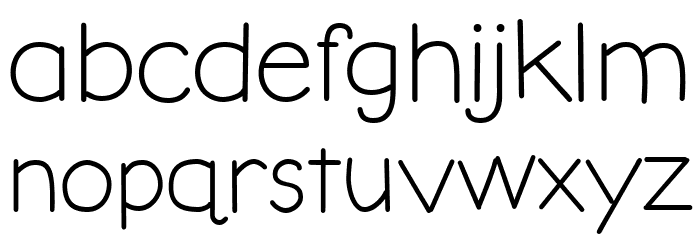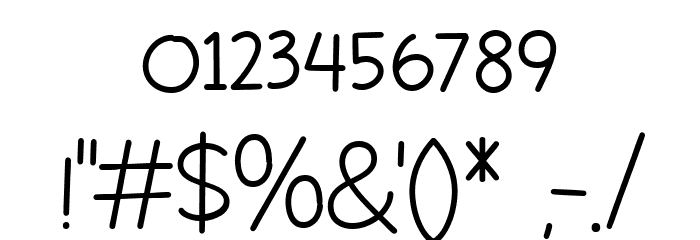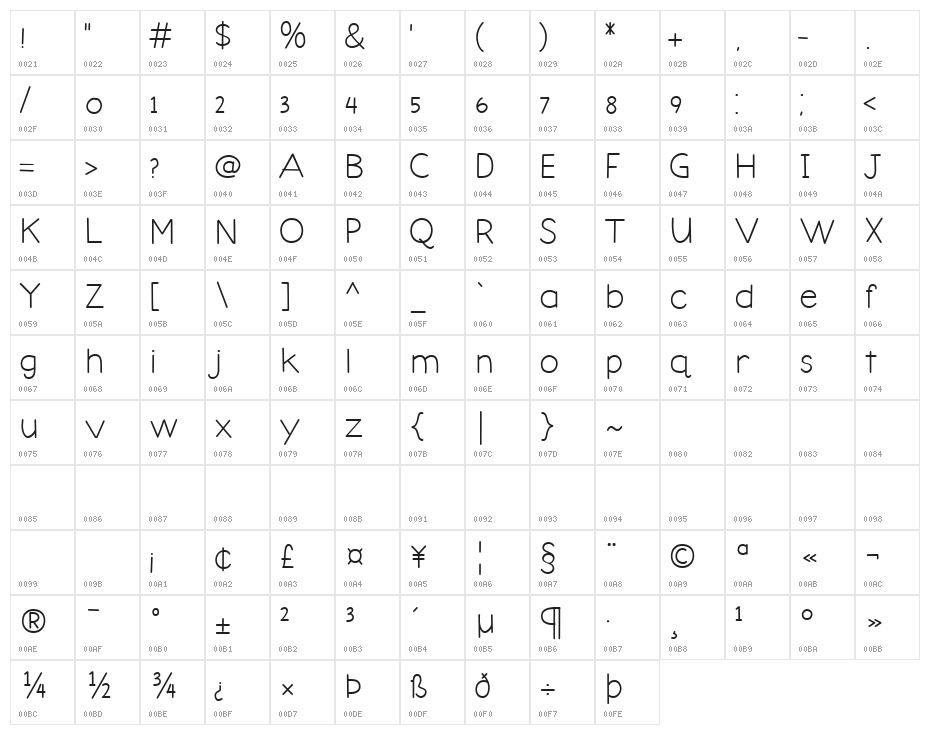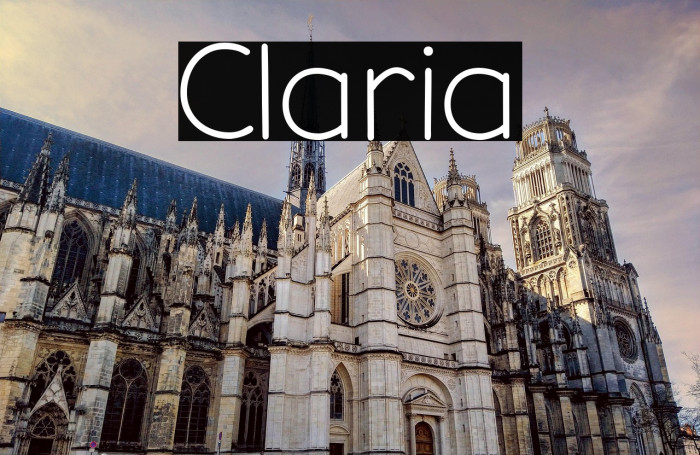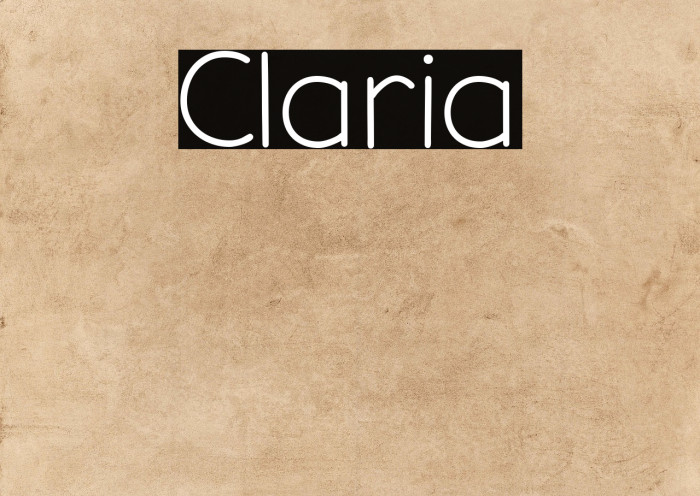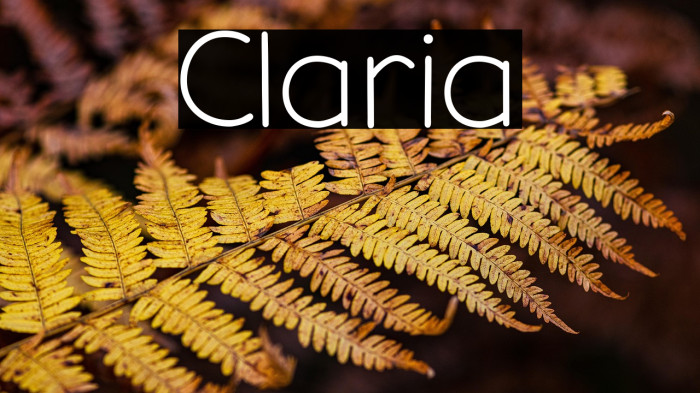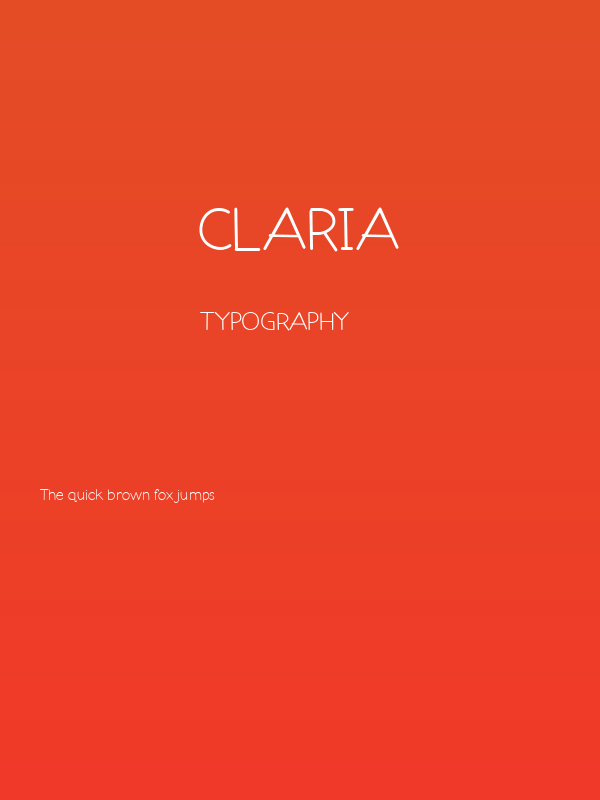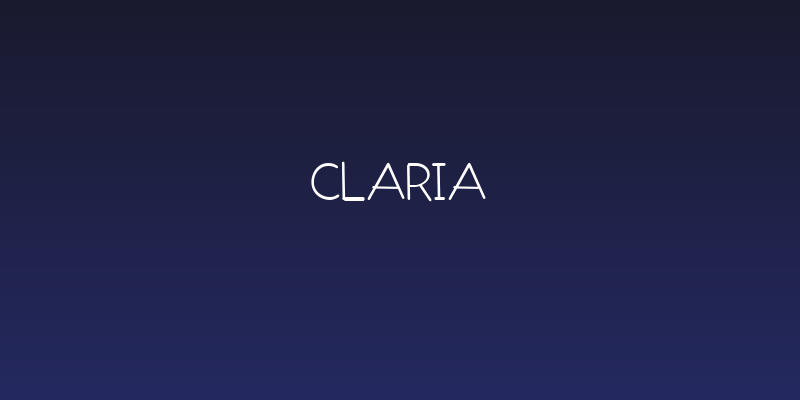
Claria Font
This font features a clean and modern sans-serif style with a playful touch. The characters are rounded and slightly elongated, giving them a friendly and approachable appearance. The uppercase letters are uniform in height, while the lowercase letters maintain a consistent baseline with gentle curves. The numerals are clear and easy to read, matching the overall aesthetic of the alphabet. Special characters are well-integrated, maintaining the font's cohesive look. This font is versatile, suitable for both digital and print media, and can be used to convey a sense of warmth and simplicity.
A modern, rounded sans-serif font with a playful and approachable style.
- Font: Claria
- Proposed Projects: Ideal for children's books, educational materials, branding for playful products, and casual digital content.